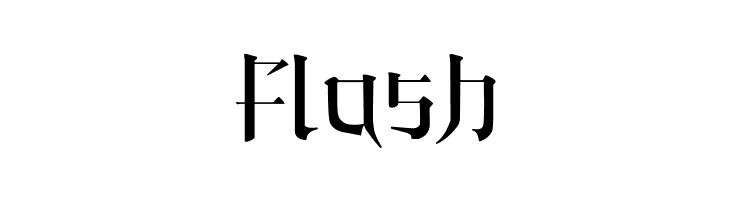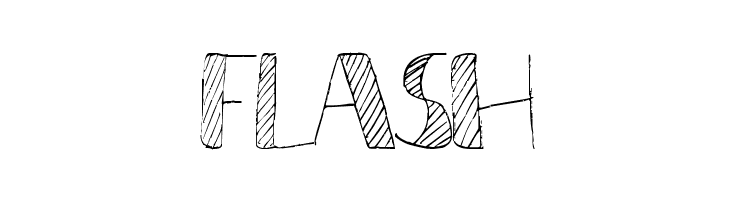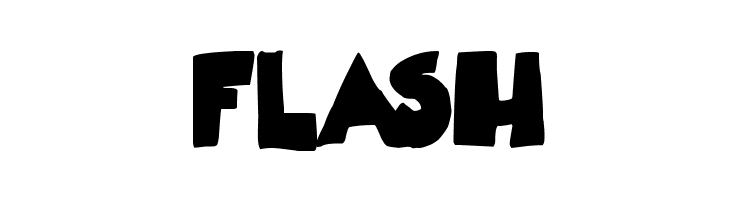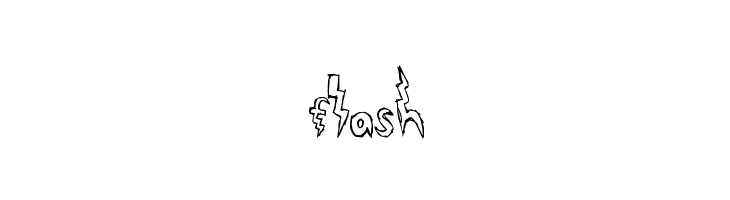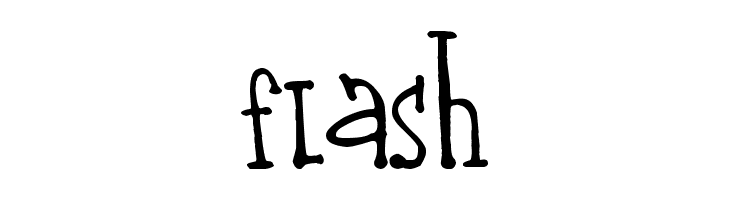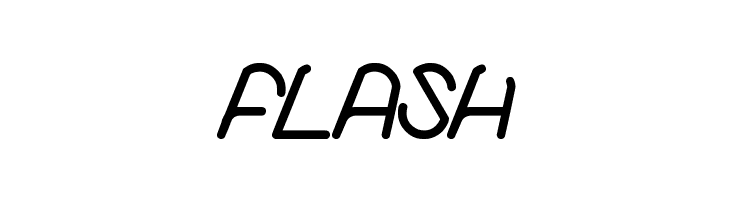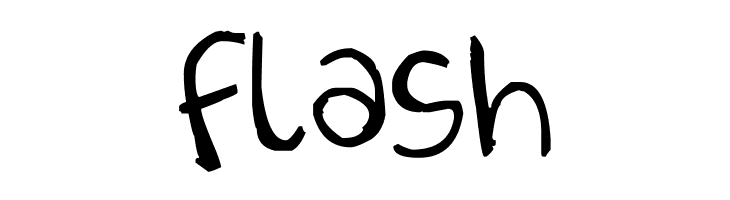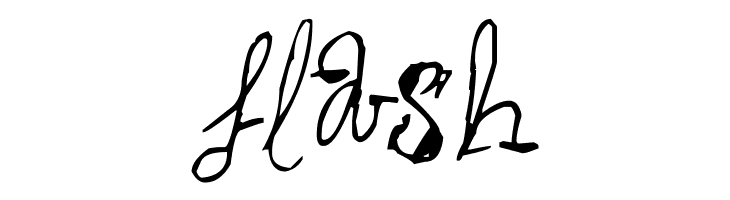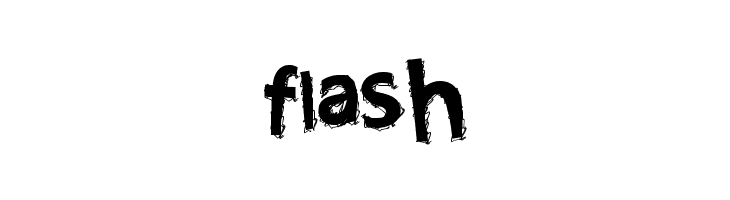
A playful, handwritten font with whimsical curls and loops.
A bold, distressed font with a grunge, textured style.
An artistic and elegant font with dynamic curves and elongated serifs.
A bold, dynamic font with a medieval flair and unique serifs.
An elegant, decorative font with fluted, extra-expanded letterforms.
A narrow, extra-condensed font with elegant, elongated characters.
An outline font with bold, expansive characters and an elegant, artistic flair.
A bold, shadowed decorative font with a vintage flair.
A bold, wide, and expanded font with modern and classic elements.
A bold, distressed font with a grunge, hand-drawn appearance.
A bold, energetic handwritten font with a gritty, urban texture.
A display font made up of diverse lightning bolt icons and electric motifs.
A display font made up of diverse lightning bolt icons and symbols.
A bold, hand-drawn font with an energetic and edgy style.
A bold, brush-style font with an expressive and dynamic appearance.
A futuristic, geometric font with continuous lines and angular shapes.
A futuristic, geometric font with interconnected lines and a sleek design.
A playful, handwritten font with bold, irregular strokes and a whimsical style.
A bold, decorative font with floral motifs in uppercase letters.
A playful, hand-drawn font with irregular, whimsical characters.
A modern, elongated font with a sleek and artistic design.
A bold, playful font with dynamic, irregular shapes and a lively appearance.
A playful, bold font with irregular, cartoonish shapes and a whimsical style.
A modern gothic font with sharp, angular lines and geometric shapes.
A clean, geometric font with thin, uniform lines and rounded edges, offering a modern and minimalist look.
A hand-drawn, sketch-style font with textured, playful lines.
A hand-drawn, sketch-like font with overlapping lines and geometric shapes.
A geometric, futuristic font with a technical and structured design.